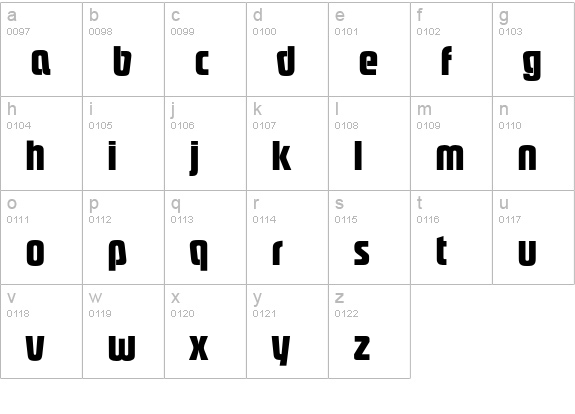
Pasadena-Bold Font Details
Pasadena-Bold is a strong, high-contrast variant in the Pasadena typeface family \xE2\x80\x94 well suited to headlines, attention-grabbing titles, and strong calls-to-action.
Pasadena-Bold is a modern and versatile font that exudes confidence and boldness. With its clean lines and strong presence, this font is perfect for a wide range of design projects, from branding and packaging to headlines and posters. The bold weight of Pasadena-Bold adds a touch of strength and power to any text, making it stand out and grab attention. It is a font that demands to be noticed, and it delivers a visual impact that is hard to ignore. One of the most exciting features of Pasadena-Bold is that it is available for free! Yes, you heard it right. This stunning font can be freely downloaded at FontsMarket.com, allowing designers and creatives to have access to high-quality typography without breaking the bank. Whether you are a professional designer looking to enhance your portfolio, a student working on a school project, or simply someone who appreciates beautiful typography, Pasadena-Bold is a font that you won't want to miss. Its sleek and modern design, combined with the fact that it is freely available, makes it a must-have addition to any font collection. So, what are you waiting for? Head on over to FontsMarket.com and download Pasadena-Bold today. Expand your creative possibilities, make a statement, and captivate your audience with this remarkable font. Don't miss out on the opportunity to freely add Pasadena-Bold to your font arsenal.